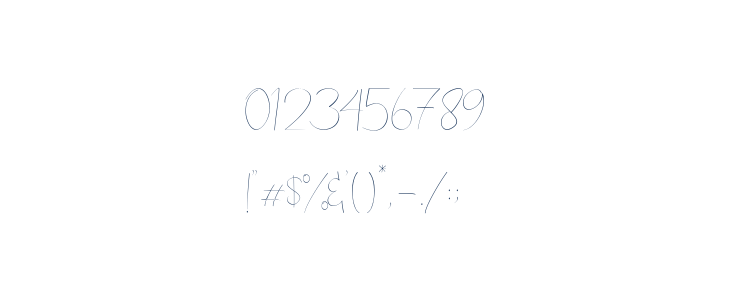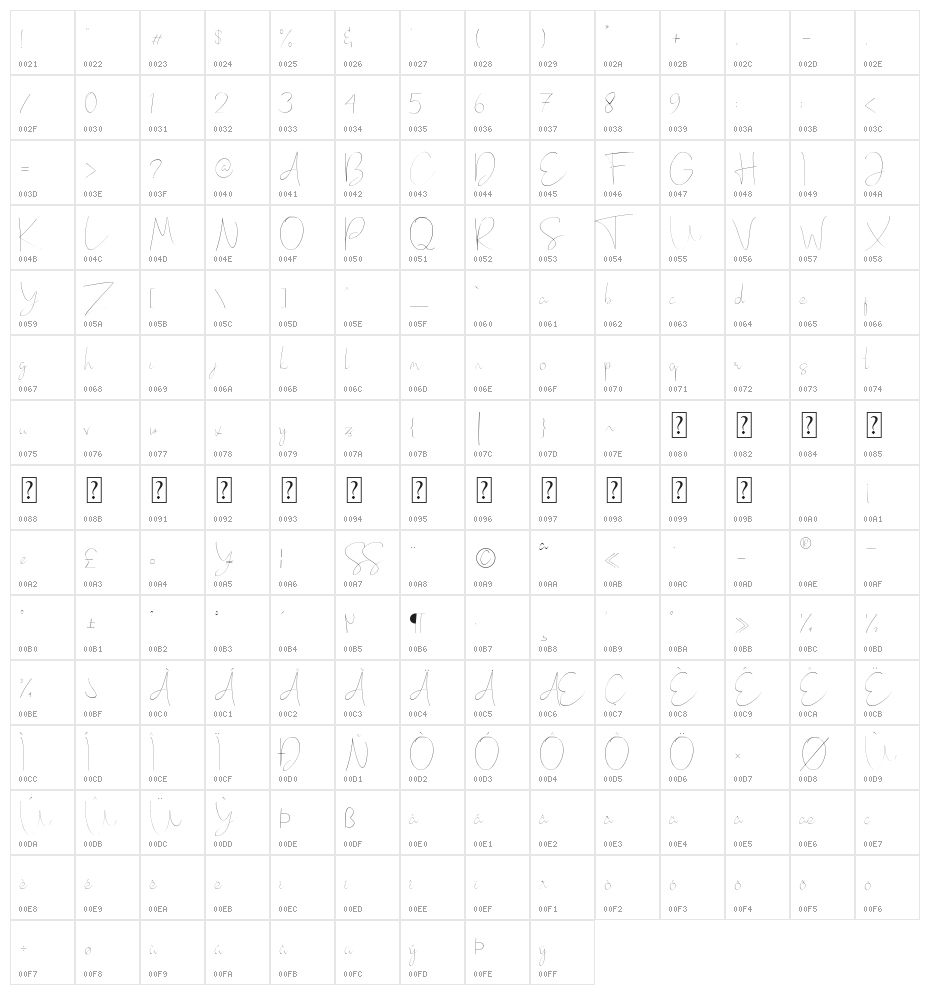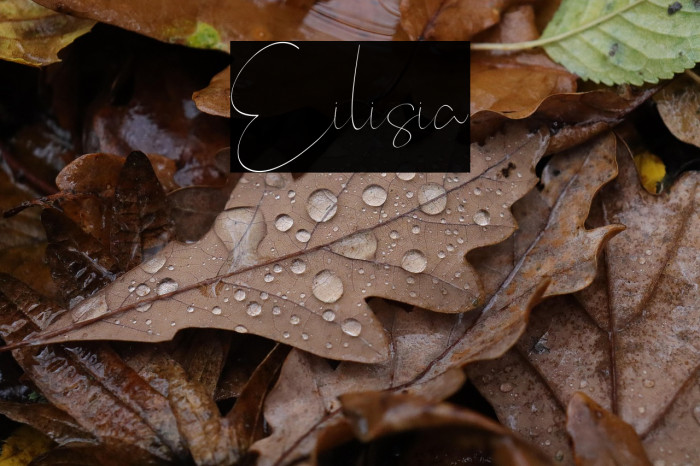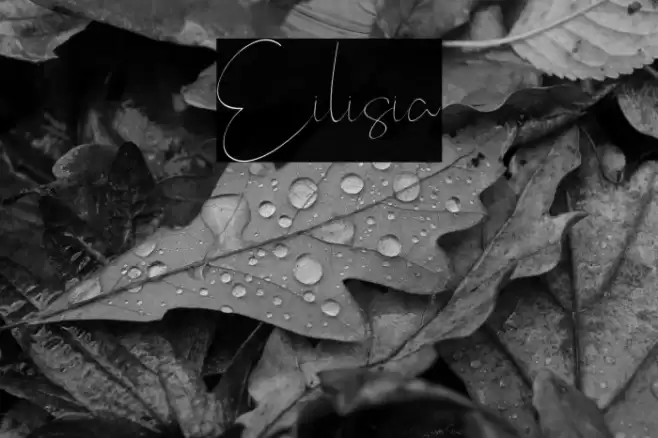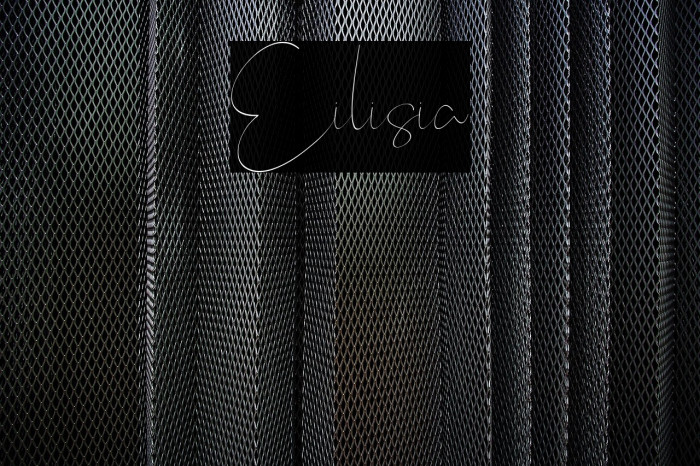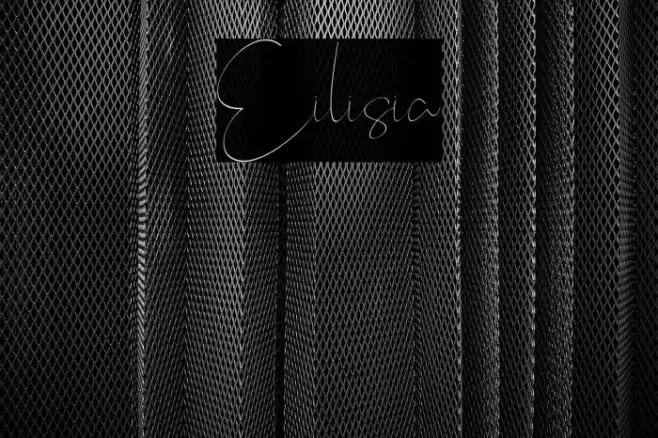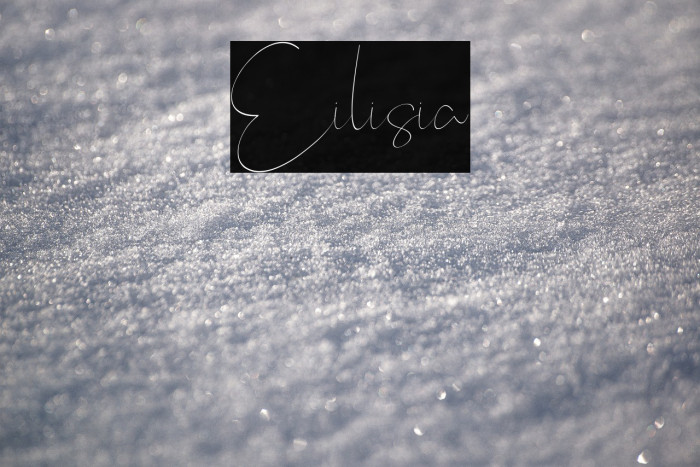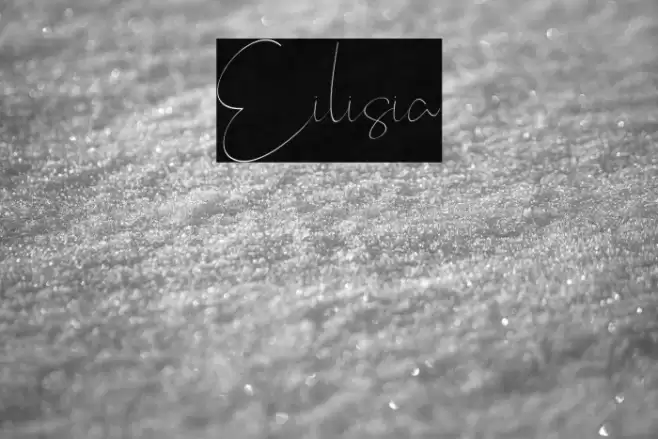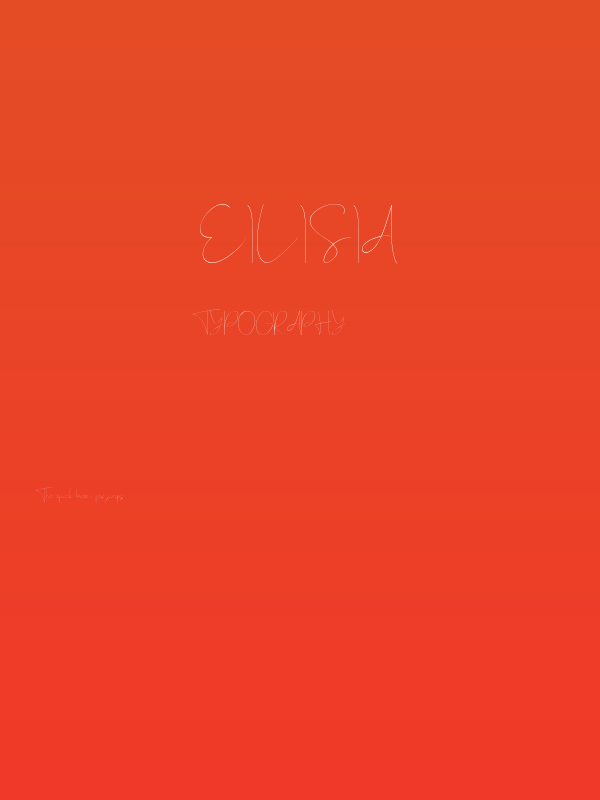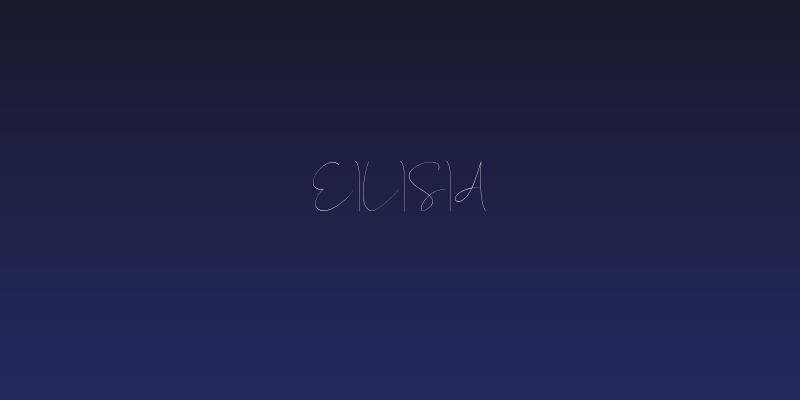
Eilisia Font
Eilisia Description
This font features a delicate and elegant handwritten style, characterized by its thin, flowing lines and graceful curves. The uppercase letters are tall and slightly elongated, giving a sense of sophistication and poise. Lowercase letters maintain a consistent flow, with some letters like 'f' and 'g' featuring distinctive loops that add to the font's charm. The numerals are sleek and align well with the overall aesthetic, while the special characters are crafted with the same attention to detail, ensuring a cohesive look. This font's airy and light appearance makes it ideal for projects that require a touch of elegance and personal flair.
| Use Case | Invitations, Personal branding, Artistic projects |
| Proposed Projects | Ideal for wedding invitations, personal branding, elegant stationery, and artistic projects. |